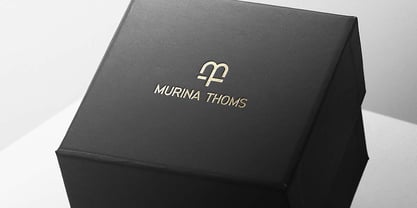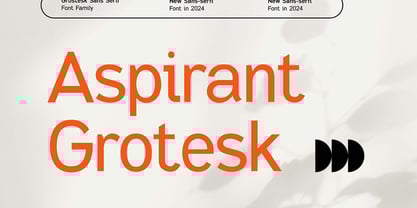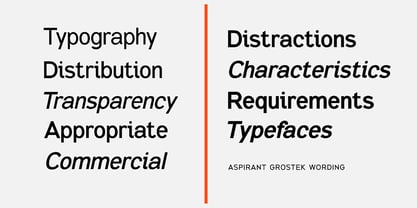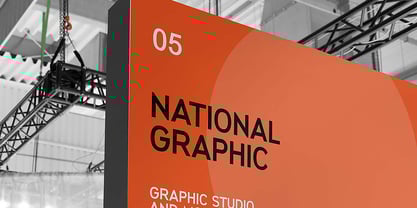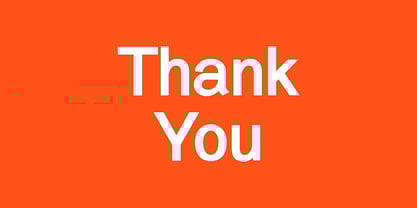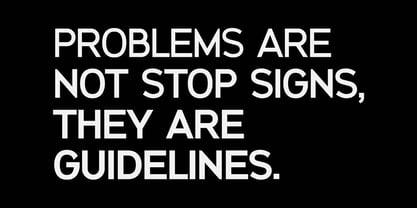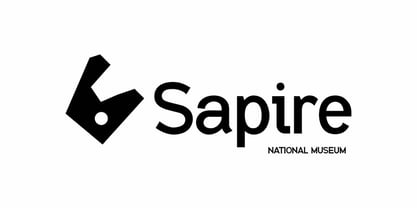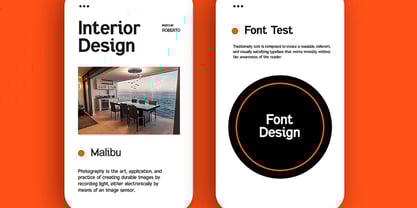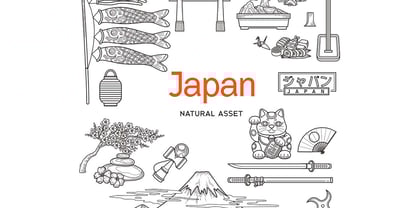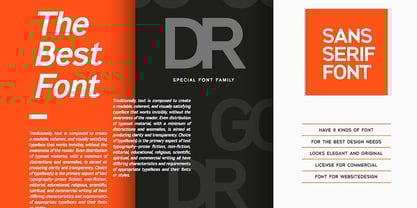
Aspirant Grotesk
by UICreative
The Aspirant Grotesk Font Family was designed by Hero and published by UICreative. Aspirant Grotesk contains 7 styles and family package options. More about this family
Aspirant Grotesk Modern Geometric Font Family. The modern display font feels beautiful classy, elegant, and stylish. This font is ideally suited for a wide variety of projects, such as signature, stationery, logo, wedding, typography quotes, magazine or book covers, website headers, branding, and more. Also, fashion-related branding or editorial design displays both masculine and feminine qualities.
Designers: Hero
Foundry: UICreative